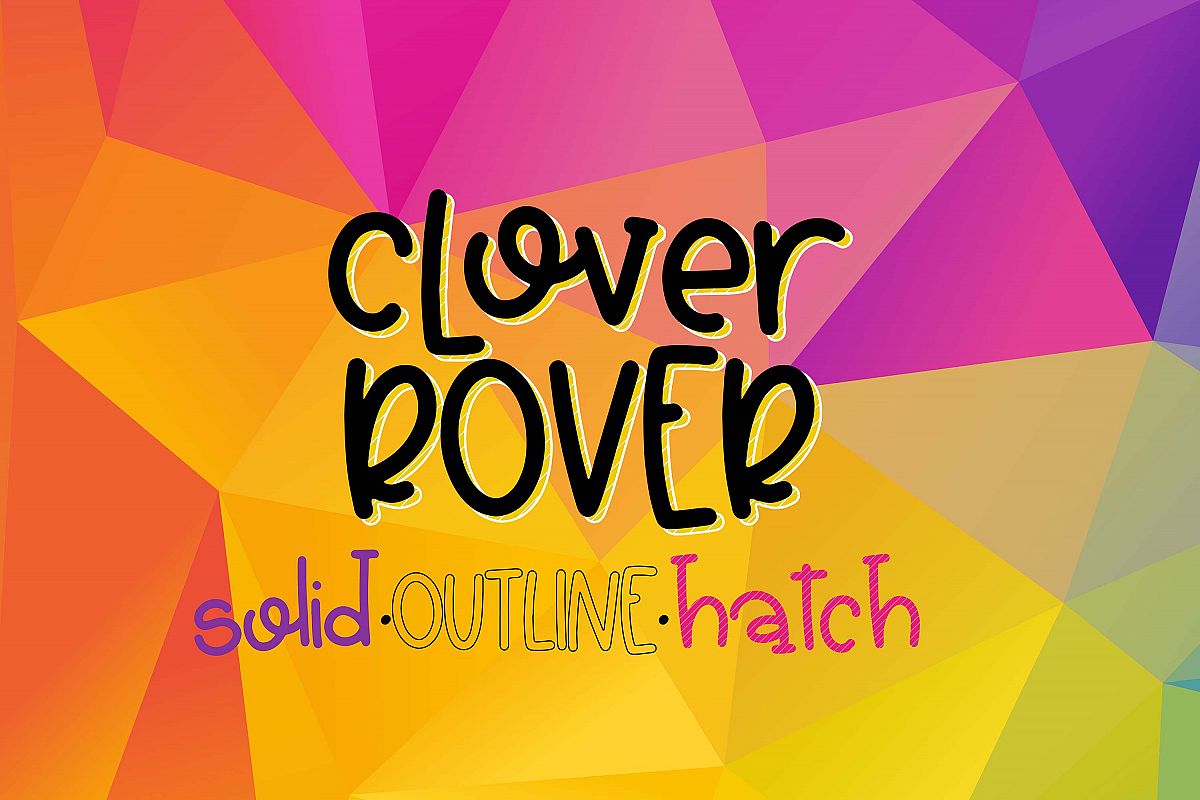
Clover Rover
Meet Clover Rover! A quirky and fun font set that includes 5 different fonts: Solid. Outline. Thin Outline. Hatch. Thin Line.
I had so much fun creating this one for you guys! The layering of each one leaves you open for endless design possibilities. Great for crafters with cutting machines (cricut, silhouette, snc)! Clover Rover is easy to layer to make eye catching designs!